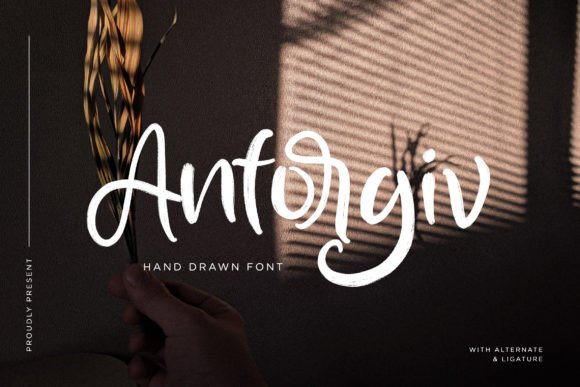
Anforgiv Font
Anforgiv: The Font That Will Make Your Marketing Fly
In a world where first impressions matter, your marketing materials need to stand out from the crowd. With Anforgiv, the modern and striking script font, you can create captivating designs that will leave a lasting impact.
Picture this: a sleek flyer with a headline that leaps off the page, thanks to Anforgiv's bold strokes and enchanting handwritten touch. Your audience will be drawn in, eager to discover what your brand has to offer.
Or imagine a poster that speaks volumes, with Anforgiv's expressive characters adding a touch of elegance and intrigue. Passersby will stop in their tracks, mesmerized by the font's alluring charm.
Anforgiv is not just a font; it's a marketing weapon. It empowers you to:
* Craft unforgettable logos that embody your brand's unique identity
* Create eye-catching book covers that entice readers with their captivating allure
* Design posters that ignite curiosity and spark imaginations
With Anforgiv, the possibilities are endless. Unlock the power of beautiful typography and let your marketing materials soar to new heights. Download Anforgiv today and watch your brand take flight!